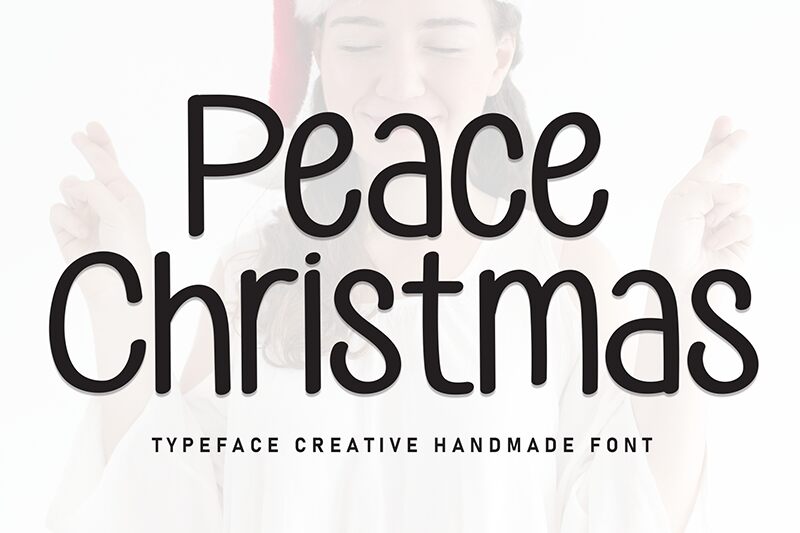
Peace Christmas
Peace Christmas font, designed by Andi Moz, is a friendly and approachable handwritten font with a casual and relaxed style. Its rounded edges and natural feel give it a soft and inviting appearance, perfect for adding a personal touch to your design projects.